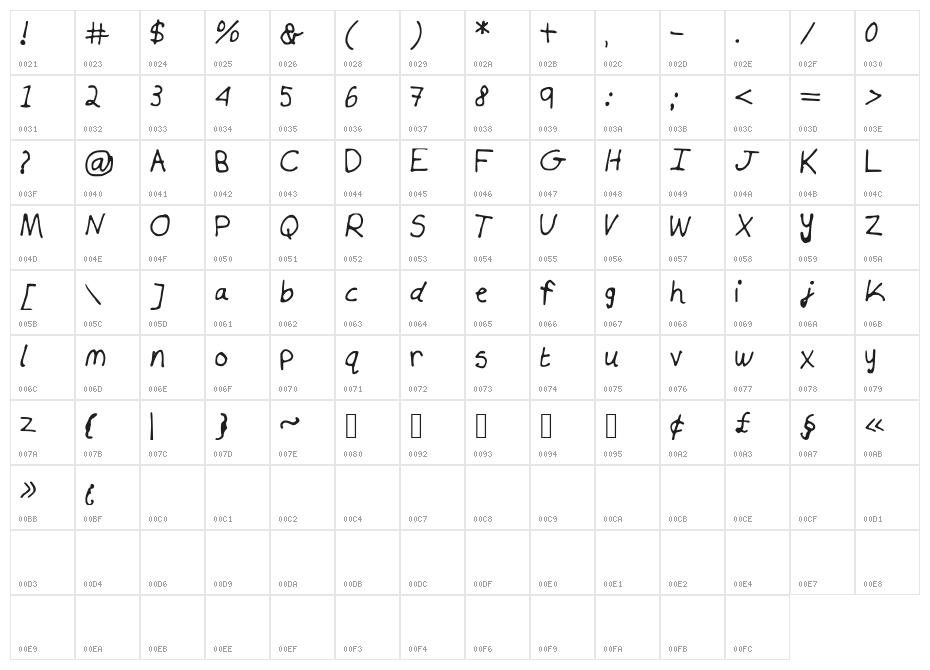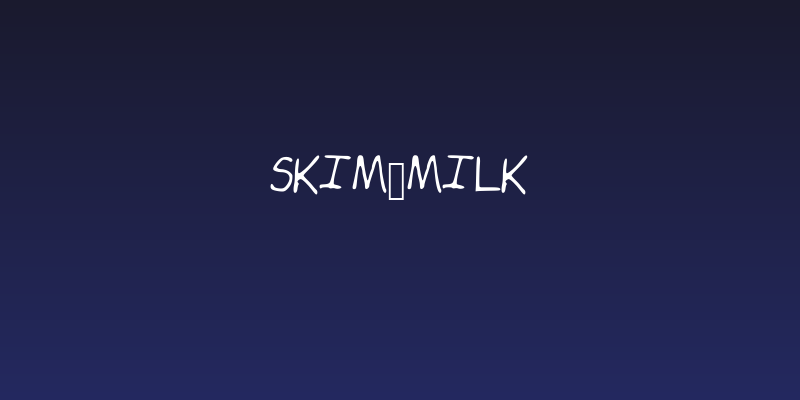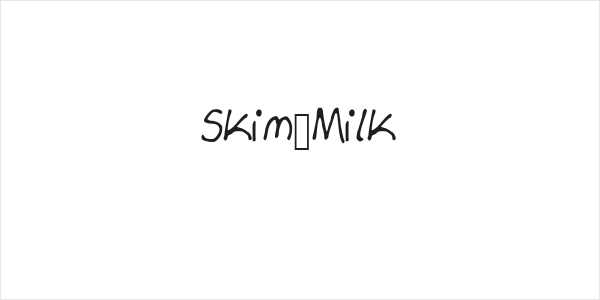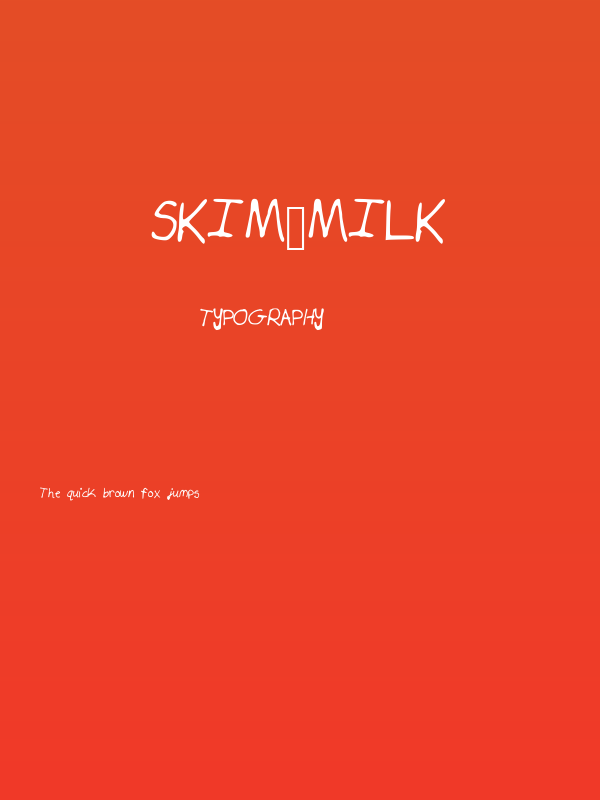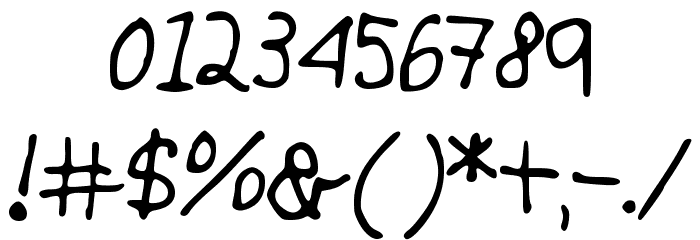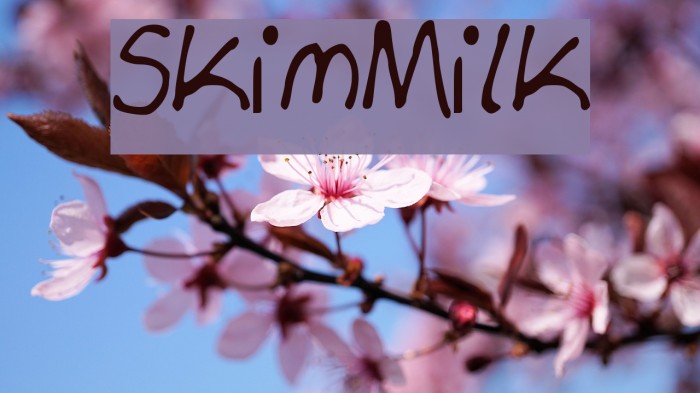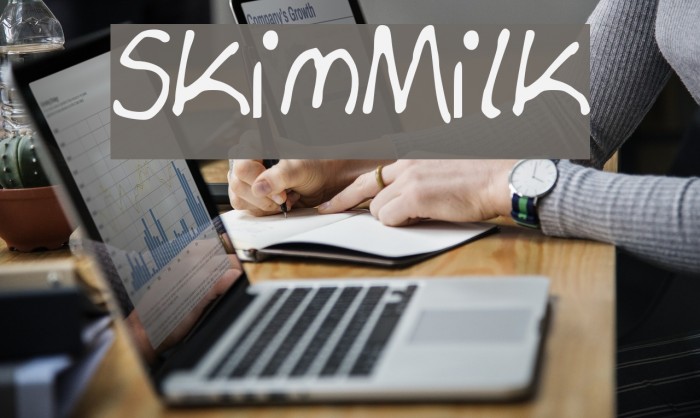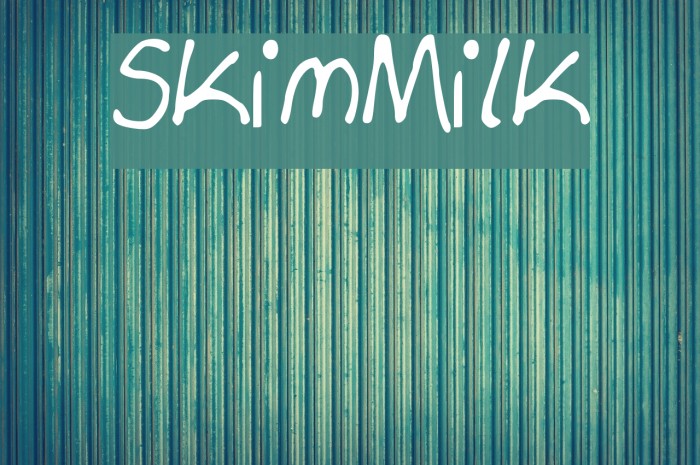
Skim_Milk Font
Skim_Milk Description
This font exhibits a playful and informal handwritten style, characterized by its irregular and slightly whimsical letterforms. The strokes are uneven, giving it a casual and approachable feel. The uppercase and lowercase letters maintain a consistent style, with rounded edges and a slight slant, adding to its relaxed appearance. The numerals and special characters follow the same aesthetic, ensuring uniformity across all glyphs. This font is perfect for projects that require a personal touch, such as greeting cards, invitations, or children's book illustrations. Its unique style makes it stand out, while still being legible and versatile.
| Proposed Projects | Ideal for greeting cards, invitations, children's books, and casual branding. |